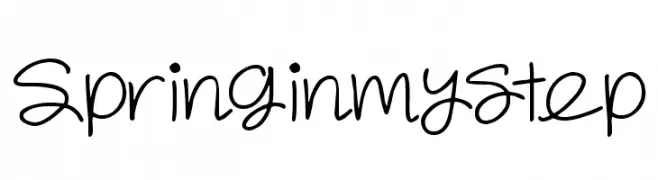
( Darrell Flood )
A playful, starry font with bold, rounded characters and embedded sparkles.
( Darrell Flood )
A playful, handwritten font with smooth, flowing lines and a casual vibe.
( Darrell Flood )
A playful, bold font with rounded, bubbly characters and star accents.
( Darrell Flood )
A bold, scratchy, hand-drawn font with a playful and informal style.
( Darrell Flood )
A scratchy, hand-drawn italic font with dynamic and expressive strokes.
( Darrell Flood )
A playful and bold font with rounded, whimsical characters.
( Darrell Flood )
A bold, italicized font with a playful and dynamic style.
( Darrell Flood )
A playful, bold font with rounded, hand-drawn characters.
( Darrell Flood )
A bold, handwritten font with a playful and friendly style.